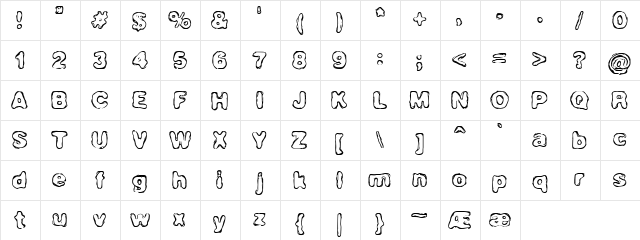
Hassle (BRK) Regular
Hassle (BRK) is a composed and adaptable typeface that performs quietly and consistently across a wide range of design contexts.